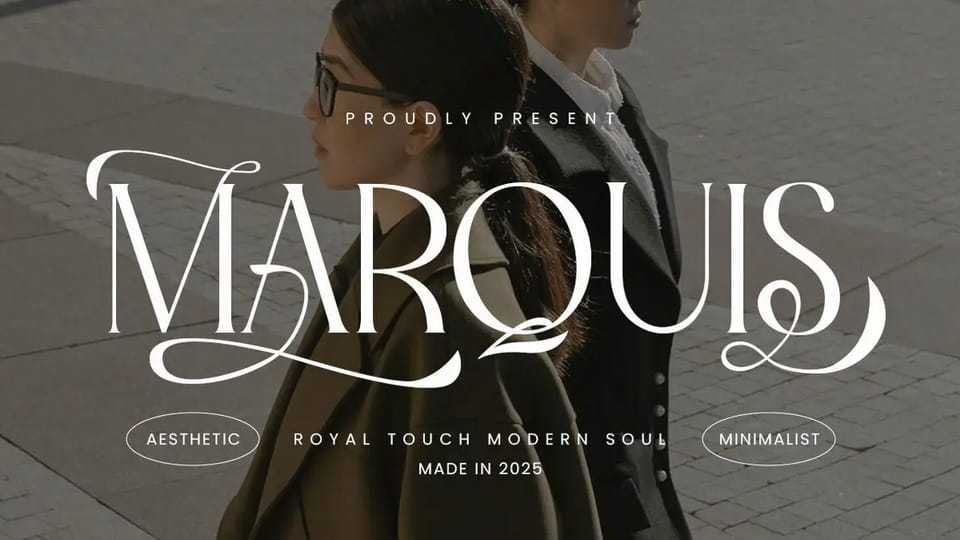
Download Marquis font, a modern serif typeface that blends classic elegance with a clean, minimalist soul. Featuring graceful curves, fine details, and stylish ligatures, it’s the perfect choice for designers who want to add a touch of luxury to their work.